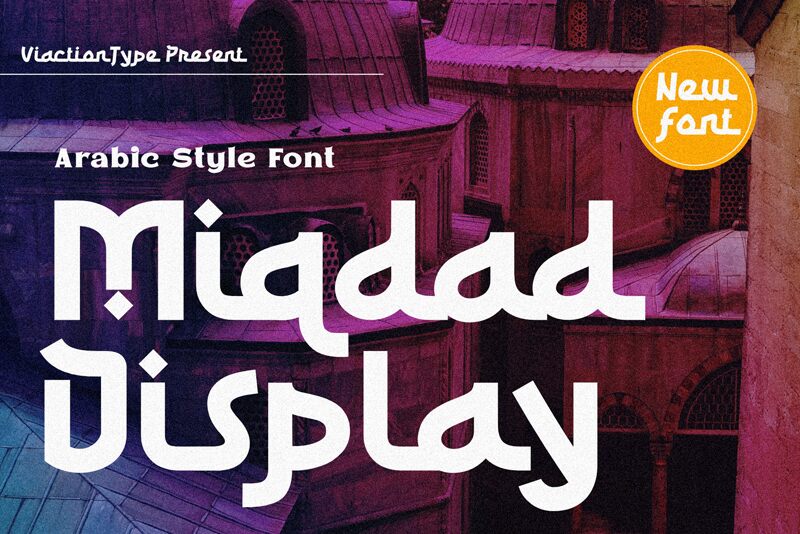
Miqdad
Miqdad font by ViactionType is a free decorative faux-Arabic typeface that instantly gives Latin letters a Middle Eastern-inspired rhythm. Its bold strokes loop and hook into each other like a flowing wordmark, while squared edges and diamond dots keep things sharp and graphic. The result feels handcrafted yet sturdy, with a strong horizontal pull that makes short words read like striking logos.
Using Miqdad, this free font shines on restaurant identities, food packaging, themed event posters, hookah lounge signage, film titles, and travel brochures. The tight, continuous texture works beautifully at larger sizes where the curves can really breathe. For supporting text, pair it with a clean geometric sans in a lighter weight and let Miqdad handle the main headlines or logotypes.